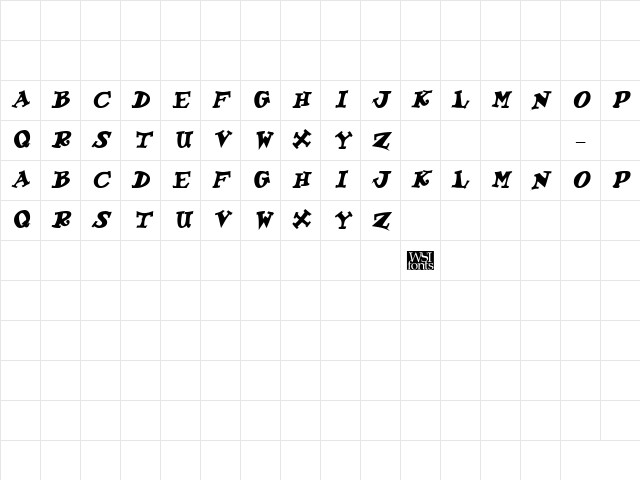
KoolKapsDisplay Bold Italic
Design Context for KoolKapsDisplay
KoolKapsDisplay is built around its visual character rather than neutral utility - its distinctive forms are designed to make an impression at display sizes. The slanted form adds forward momentum and visual energy. Its bold stroke weight gives it real presence on the page.
Font Pairing: Pair with a clean neutral sans-serif for body copy to let KoolKapsDisplay's character lead without overwhelming the composition.
Pro Tip: Use KoolKapsDisplay exclusively at display sizes - it was designed to be seen, not read at length. Let a neutral companion handle body copy.